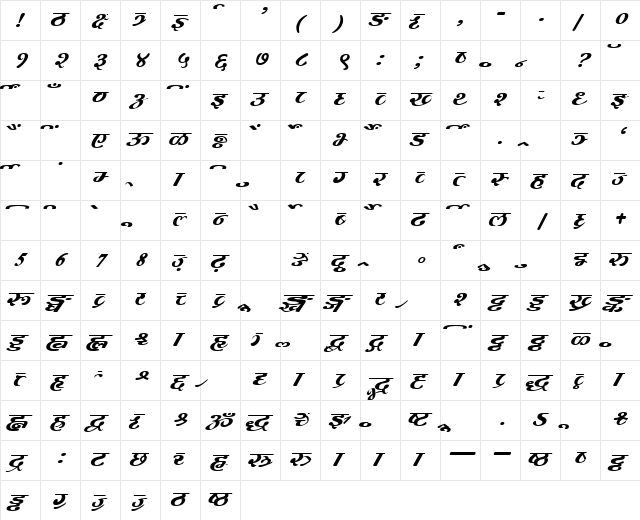
AkrutiDevKailasMedium Italic Font Preview
AkrutiDevKailasMedium Italic
AkrutiDevKailasMedium Italic Font Details
Design Context for AkrutiDevKailasMedium Typeface
AkrutiDevKailasMedium is a composed and adaptable typeface that performs quietly and consistently across a wide range of design contexts. Its italic angle brings a sense of urgency and motion to the letterforms.